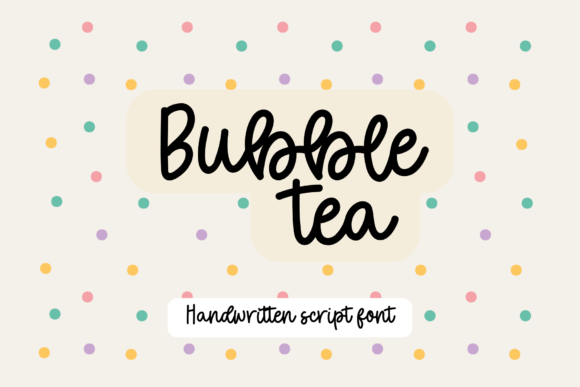
Introducing Bubble Tea Font, the ultimate choice for those seeking a script font style that exudes elegance and creativity. Created by the esteemed Cotton White Studio, this font is a perfect addition to your collection, guaranteeing a beautiful, handcrafted look for all your projects.
Unleash your creative potential with Bubble Tea Font and watch as your work transforms into a masterpiece. Its hand-drawn design adds a unique touch that sets your projects apart from the rest. Whether you're working on branding, invitations, blogs, or planners, this font will elevate your creations to new heights.
With Bubble Tea Font, authenticity and charm are just a click away. Its authentic hand-lettered appearance effortlessly captures the essence of craftsmanship, giving your projects a personal and heartfelt touch. Say goodbye to generic fonts and embrace the beauty of handcrafted design.
Dive into a world of endless possibilities with Bubble Tea Font. Its versatility allows you to experiment with various styles and layouts, enabling you to create stunning visuals that captivate your audience. Let your imagination run wild as you explore the countless ways this font can enhance your designs.
Not only does Bubble Tea Font bring your projects to life, but it also resonates with emotions. Its flowing curves and graceful strokes evoke a sense of elegance and sophistication, instantly captivating anyone who lays eyes on it. Make a lasting impression with a font that speaks volumes without saying a word.